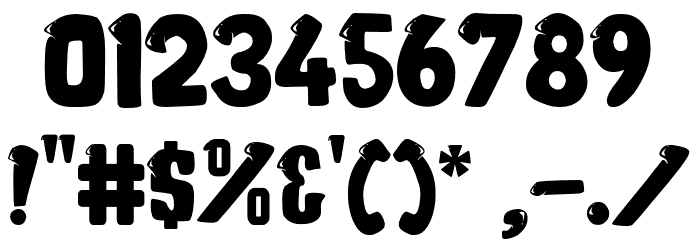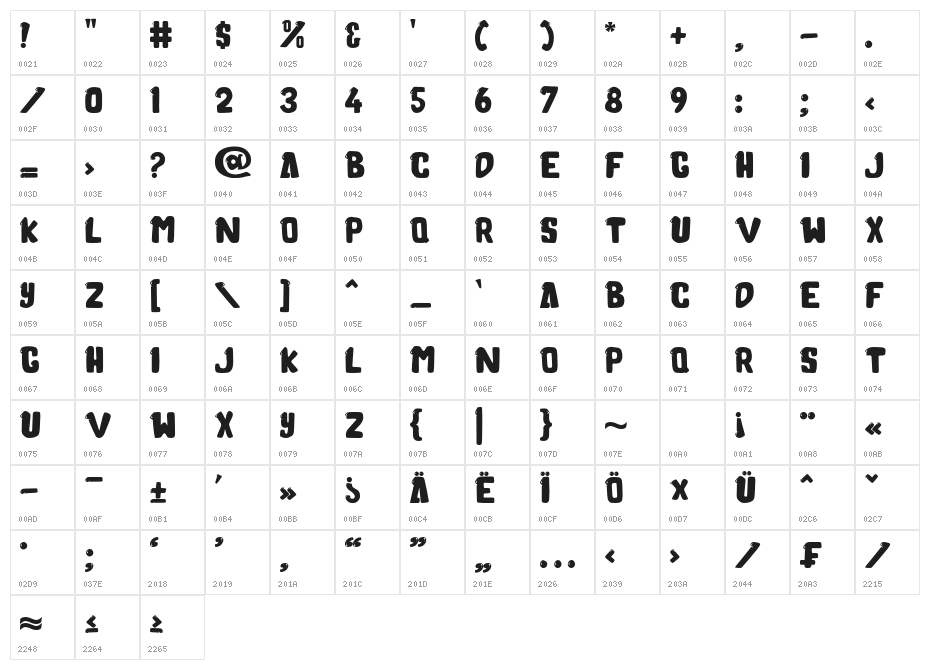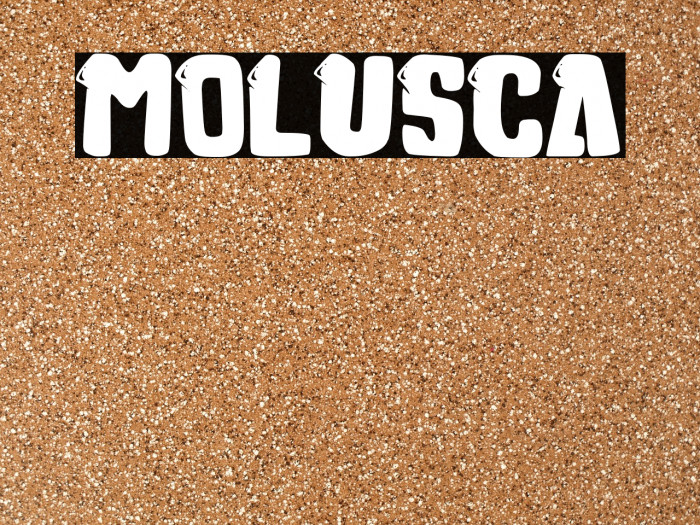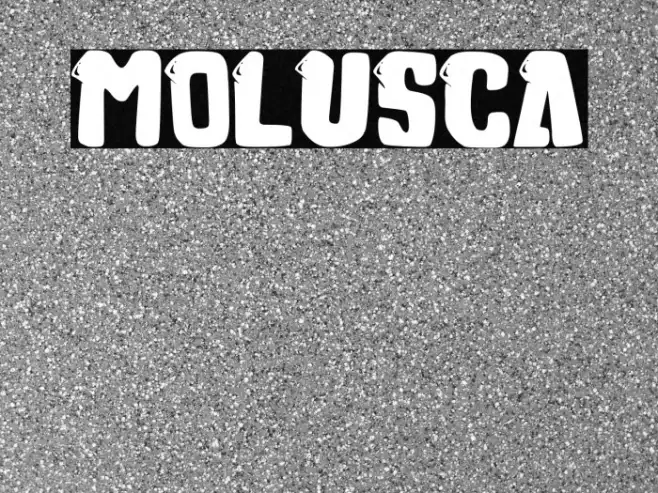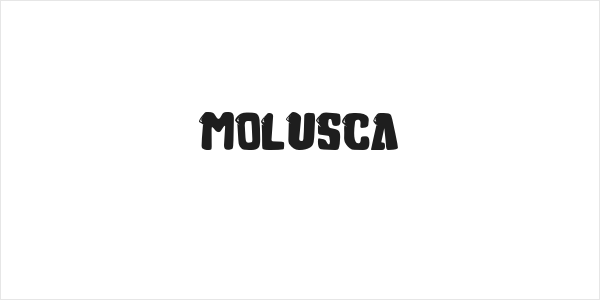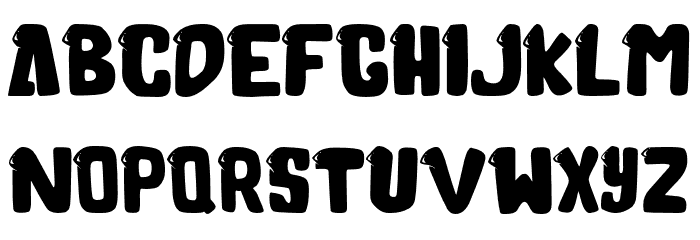
Molusca Font
Molusca Description
This font features a bold and playful design with a unique, whimsical style. Each character is crafted with a thick, rounded form, giving it a friendly and approachable appearance. The letters have a consistent weight, contributing to a cohesive look across all characters. The font includes both uppercase and lowercase letters, numerals, and a variety of special characters, making it versatile for different uses. The rounded edges and slightly condensed form add to its charm, making it suitable for creative and informal projects. The overall style is modern with a touch of fun, ideal for capturing attention in a lighthearted manner.
| Overall Style | Modern, Playful |
| Proposed Projects | Ideal for children's books, playful branding, posters, and creative social media graphics. |